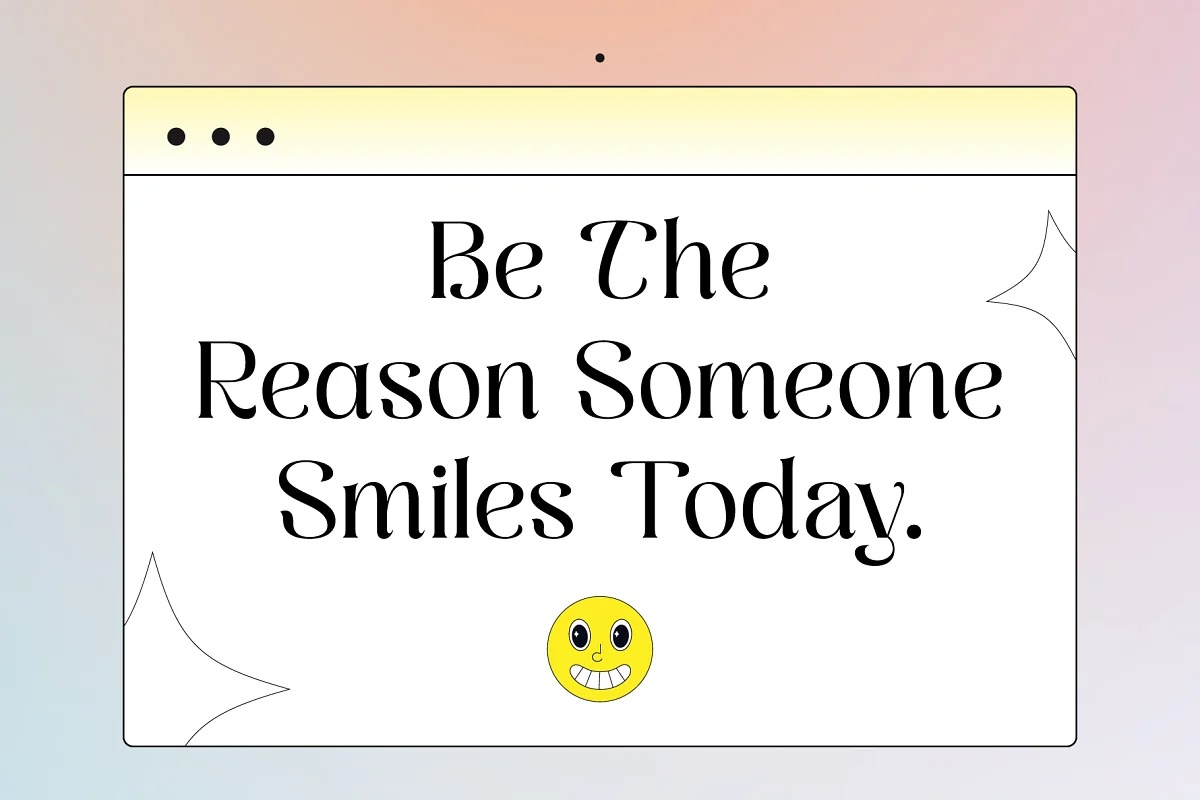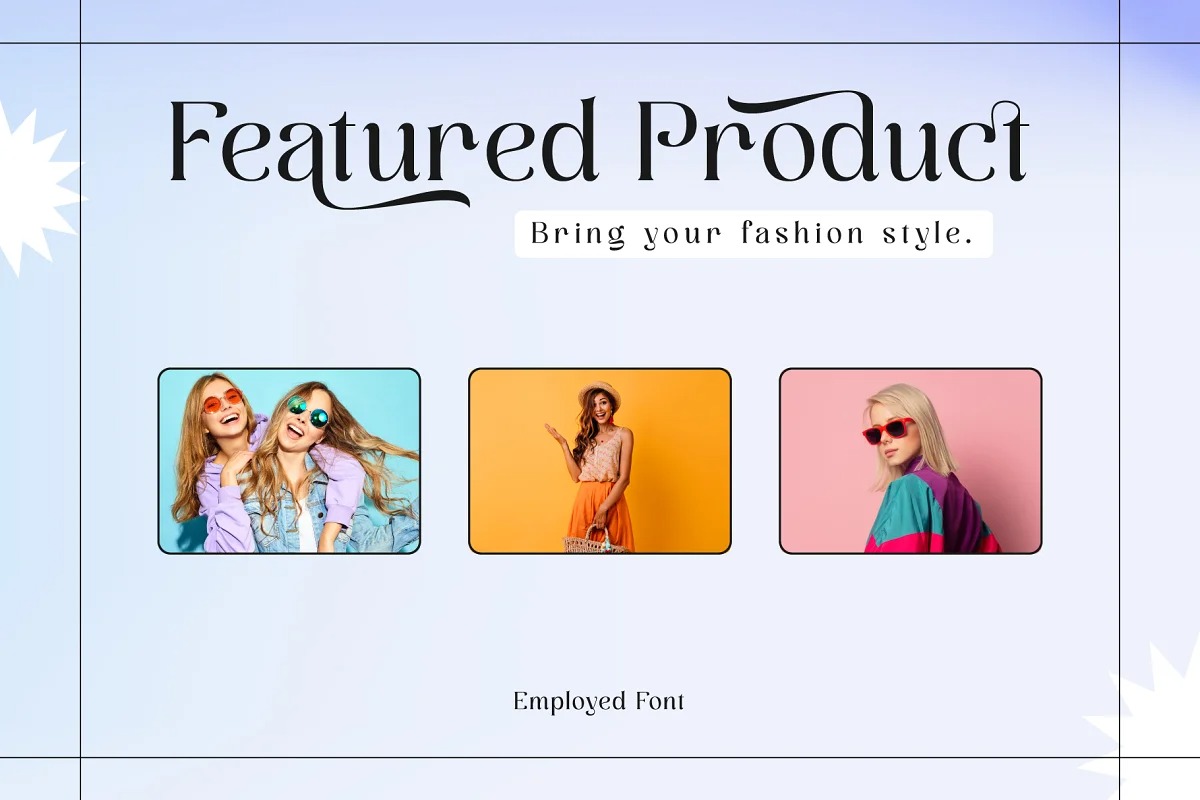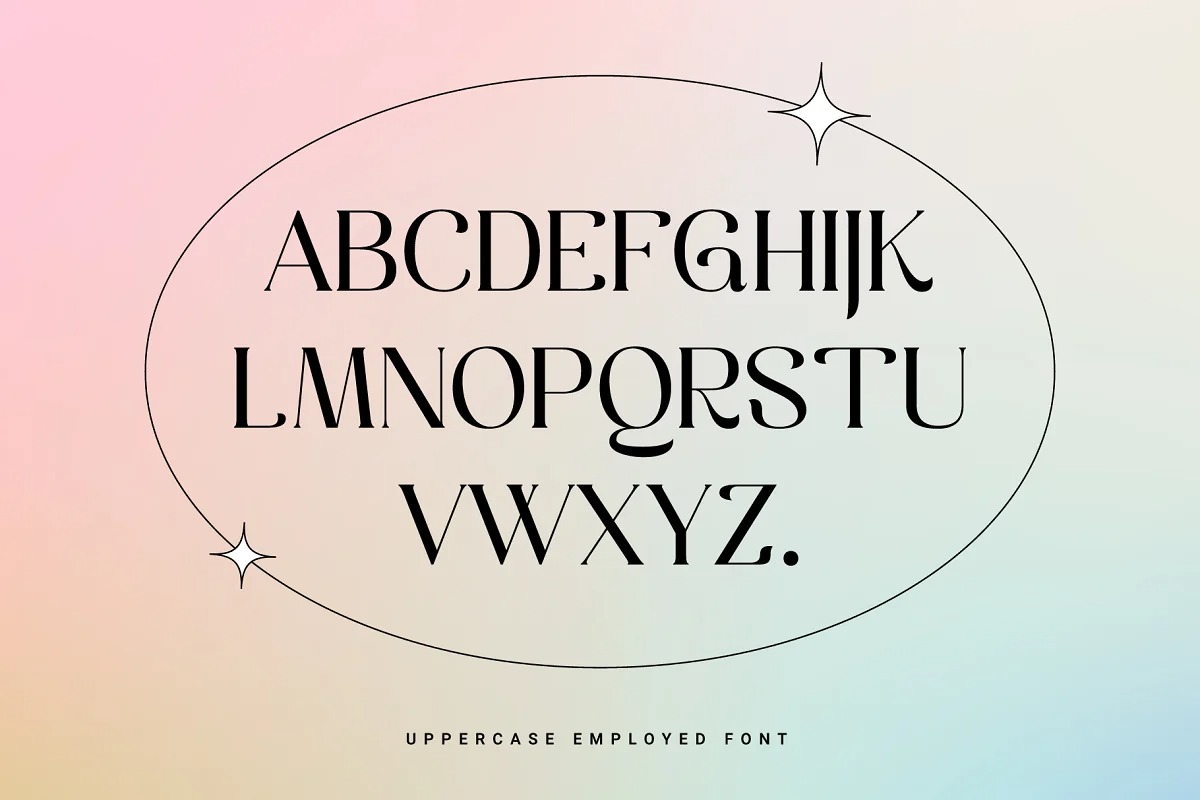
Employed Serif Font
This font is a stylish serif with an artistic and classy touch so brings us to the nostalgic era. Made from font designer named Prioritype Co. It’s a serif display font with a modern and classic style, perfect for you to use in your projects such as branding, logos or social media posts.
A clean and eye-catching typeface is expected to make your project more impressive.